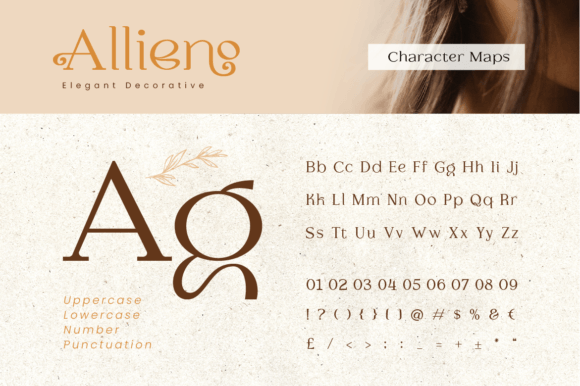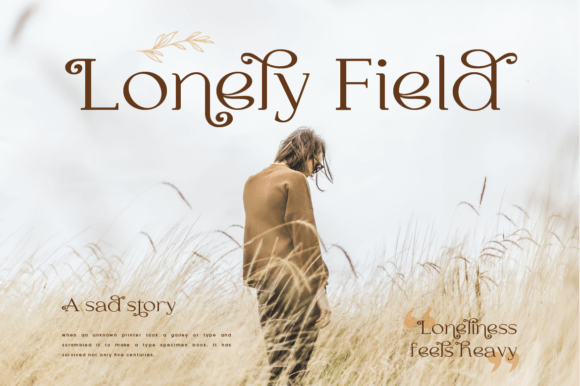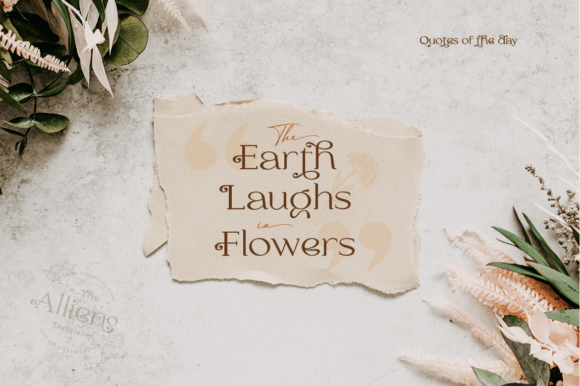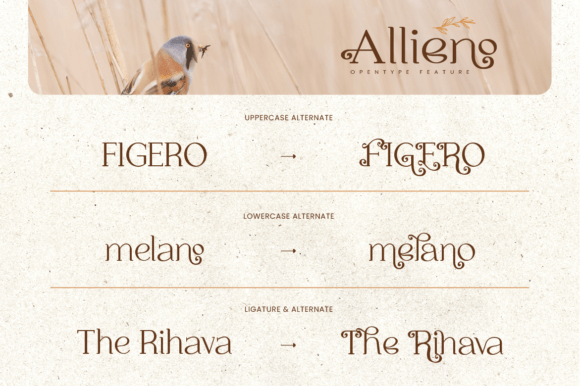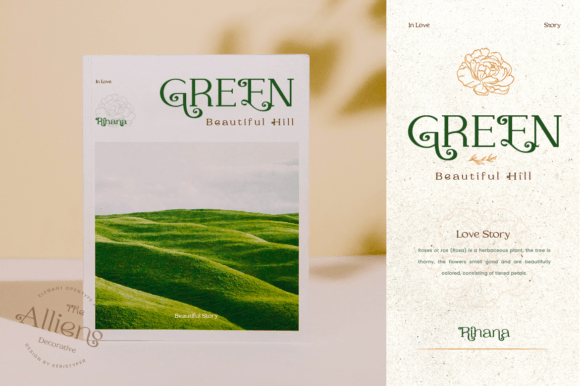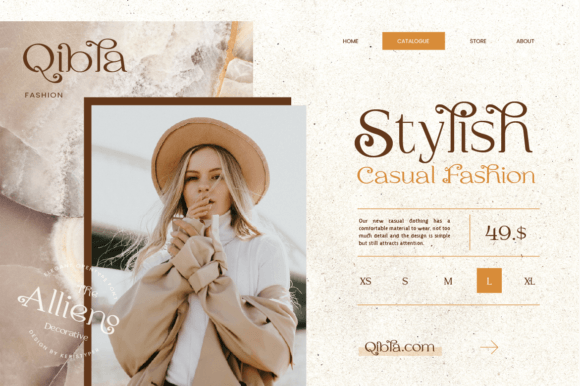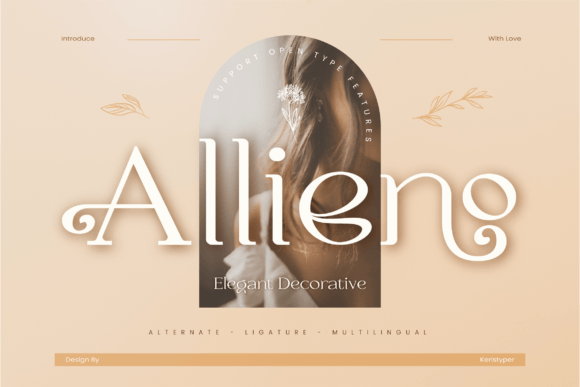
Allieno Font: Elevate Your Designs with Elegance and Sophistication
Are you looking for a typeface that can add a touch of luxury and refinement to your designs? Look no further than Allieno Font. This stunning and ornate font is perfect for designers and crafters who want to create beautiful and eye-catching projects. In this article, we’ll explore the features and benefits of Allieno Font, and show you how to use it to take your designs to the next level.
What is Allieno Font?
Allieno Font is a decorative typeface that boasts an intricate and ornate design. Its elegant and sophisticated style makes it perfect for use in a variety of projects, from wedding invitations and greeting cards to logos and branding materials. With its unique and eye-catching design, Allieno Font is sure to make your projects stand out from the crowd.
Key Features of Allieno Font
- Intricate and decorative design: Allieno Font features an intricate and decorative design that adds a touch of elegance and sophistication to any project.
- Perfect for special occasions: With its luxurious and refined style, Allieno Font is perfect for use in wedding invitations, greeting cards, and other special occasions.
- Highly versatile: Allieno Font can be used in a variety of projects, from print materials to digital designs.
- Easily customizable: Allieno Font can be easily customized to fit your specific design needs.
Benefits of Using Allieno Font
So why should you choose Allieno Font for your next project? Here are just a few benefits of using this stunning typeface:
- Adds elegance and sophistication: Allieno Font adds a touch of luxury and refinement to any project, making it perfect for special occasions.
- Unique and eye-catching design: With its intricate and decorative design, Allieno Font is sure to make your projects stand out from the crowd.
- High-quality and professional look: Allieno Font gives your projects a high-quality and professional look that’s sure to impress.
How to Use Allieno Font in Your Designs
Using Allieno Font in your designs is easy. Here are a few tips to get you started:
- Pair with a simple font: Pair Allieno Font with a simple font to create a beautiful and elegant contrast.
- Use in combination with images: Use Allieno Font in combination with images to create a stunning and eye-catching design.
- Experiment with different colors: Experiment with different colors to find the perfect combination for your design.
Tips and Tricks for Working with Allieno Font
Here are a few tips and tricks to help you get the most out of Allieno Font:
- Use it sparingly: Use Allieno Font sparingly to create a beautiful and elegant effect.
- Pay attention to spacing: Pay attention to spacing to ensure that your text is easy to read.
- Experiment with different sizes: Experiment with different sizes to find the perfect fit for your design.
| Font Name | Allieno Font |
| Author | Keristyper |
In conclusion, Allieno Font is a stunning and ornate typeface that adds a touch of elegance and sophistication to any project. With its intricate and decorative design, highly versatile and easily customizable features, and high-quality and professional look, Allieno Font is perfect for designers and crafters who want to create beautiful and eye-catching projects. Whether you’re working on a wedding invitation, greeting card, or other special occasion, Allieno Font is sure to make your project stand out from the crowd.
Allieno Font: The Perfect Choice for Designers and Crafters
In today’s competitive design landscape, it’s more important than ever to have access to high-quality and unique fonts. Allieno Font is the perfect choice for designers and crafters who want to elevate their designs and add a touch of elegance and sophistication. With its stunning and ornate design, highly versatile and easily customizable features, and high-quality and professional look, Allieno Font is the perfect addition to any designer’s toolkit.